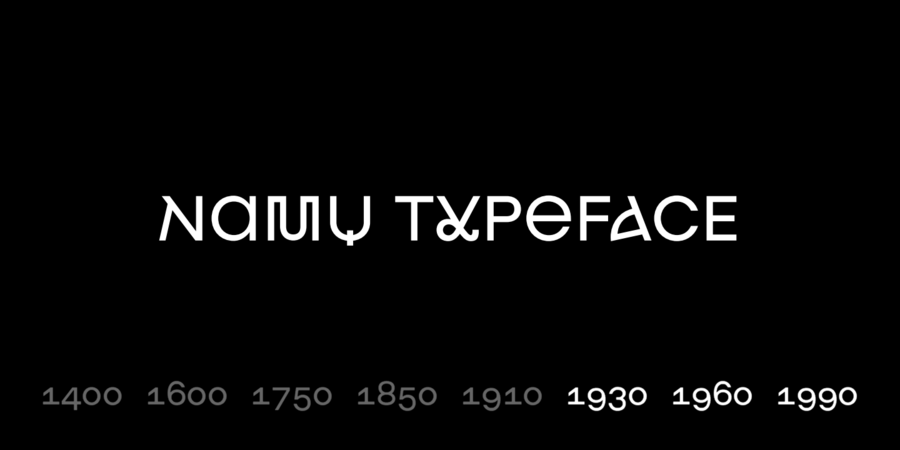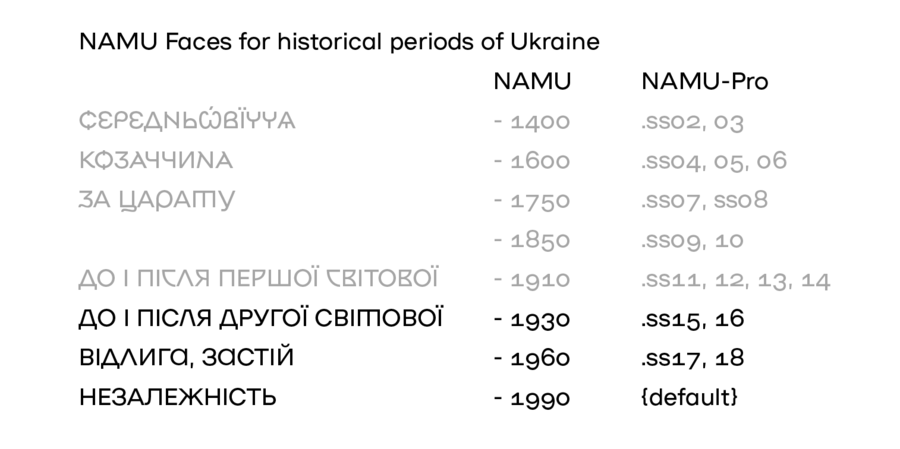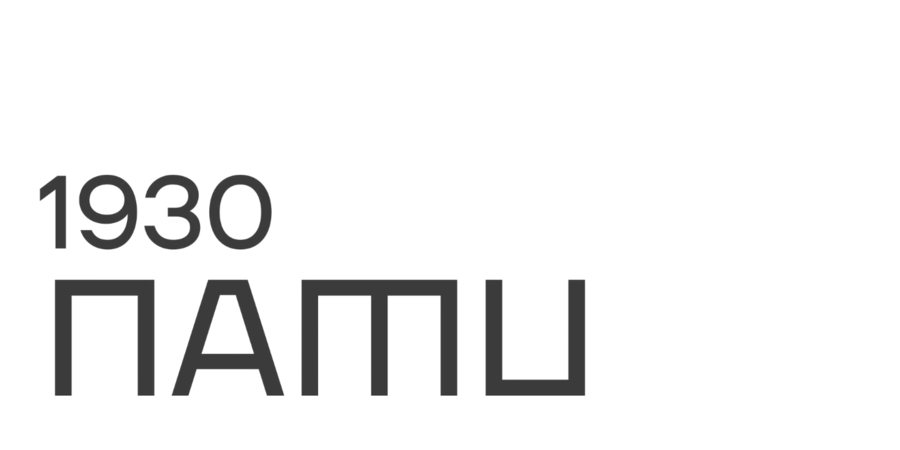
About NAMU Modernism – fonts 1930, 1960, 1990 from free typeface for the National Art Museum of Ukraine. NAMU is a geometric sans serif with a deep history and daring experiments. Red Dot winner 2019 at Corporate Design and Identity category. At the end of 2018, the National Art Museum of Ukraine and Banda agency presented a new identity. The NAMU typeface became the basis of the visual style. To create this basis, designer Dmytro Rastvortsev immersed himself in the research of the museum fund, archival documents and outlines of ancient letters. As a result, the final NAMU typeface has 20 stylistic sets in the NAMU Pro version and 9 separate font styles for each historical period. NAMU typeface is free for commercial and non-commercial use. But the font files must not be decompiled. License Creative Commons CC BY-ND 4.0. Created by Dmytro Rastvortsev in 2018-2022.
Features of font family NAMU ModernismThe hit of the decade:
Associations for font family NAMU ModernismTypeface personality and character: